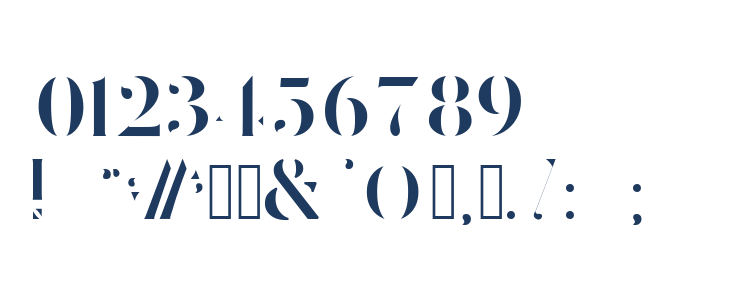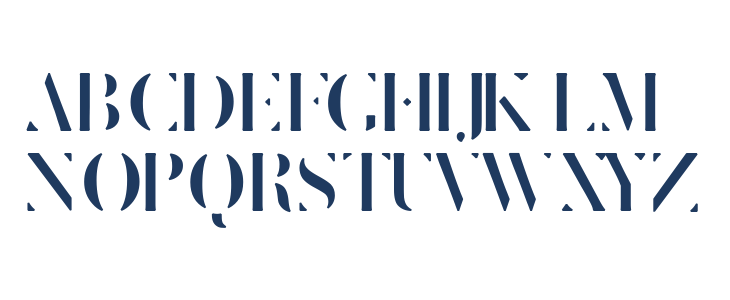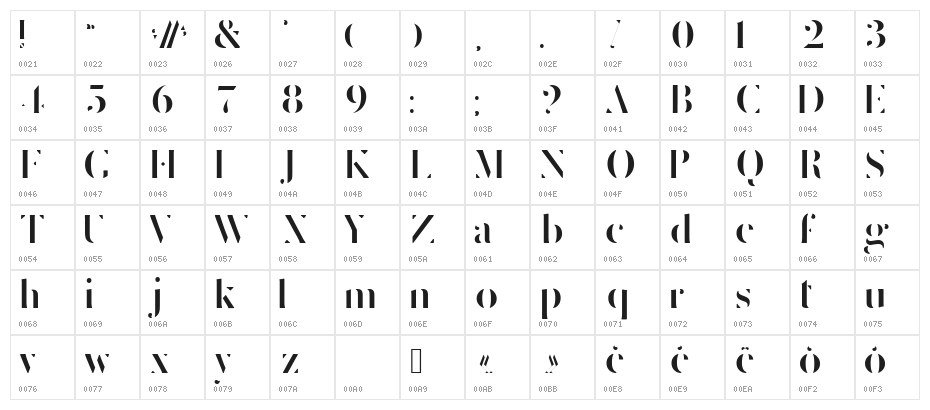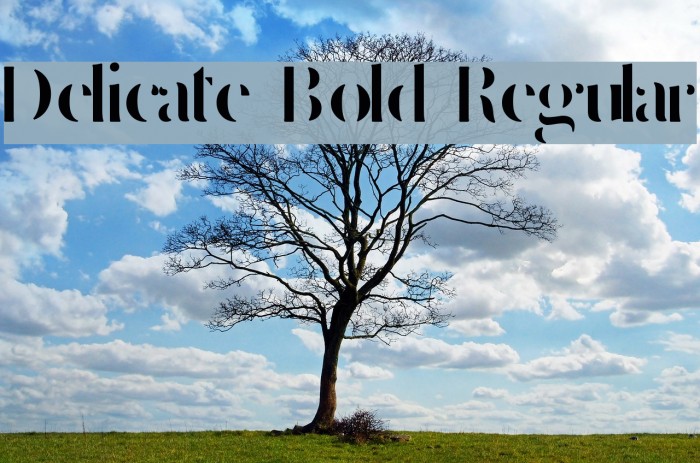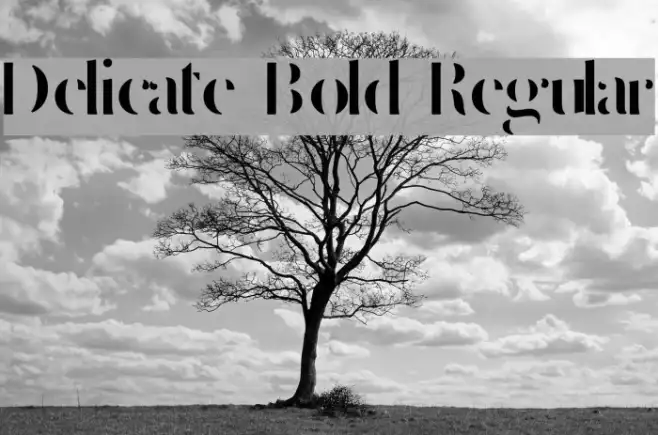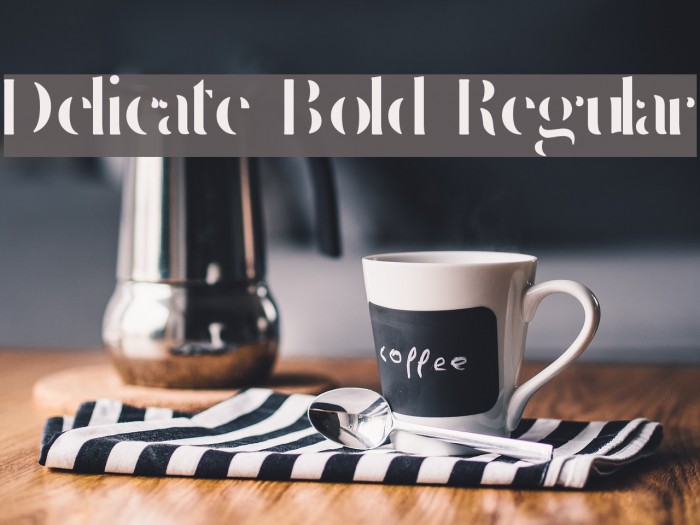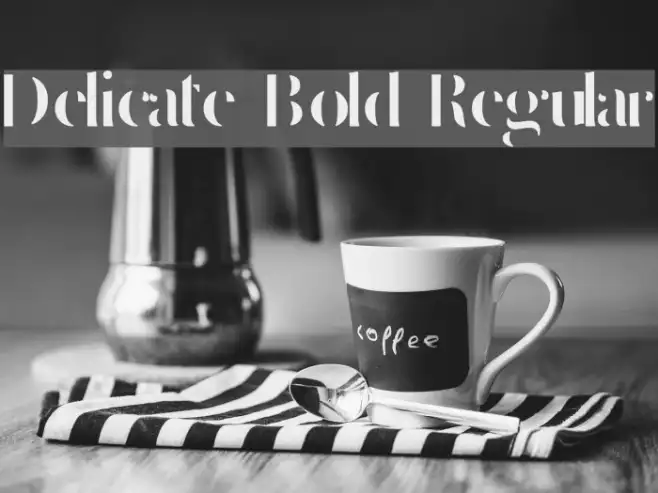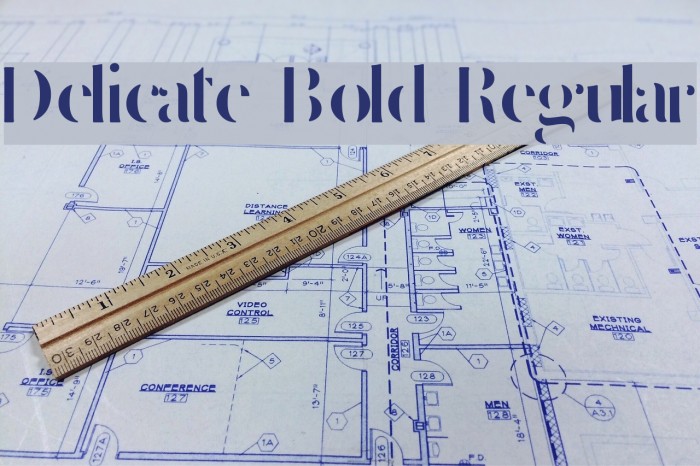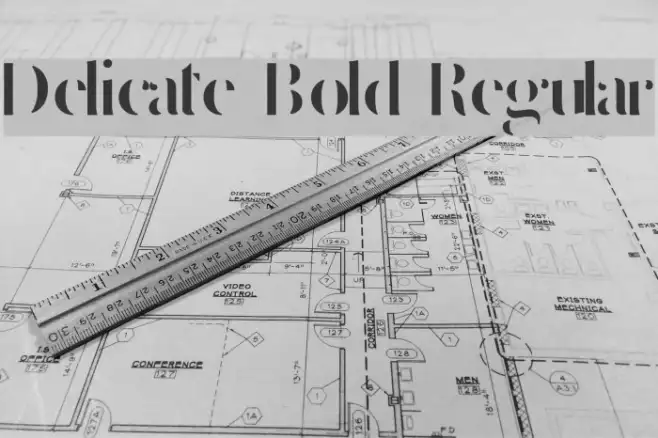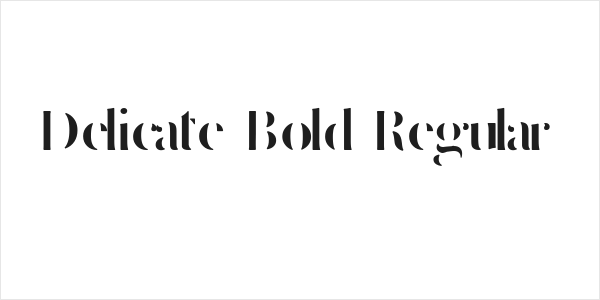
Delicate Bold Regular Font
Delicate Bold Regular Description
This font presents a bold and striking appearance with a stencil-like design. The characters are defined by thick, solid strokes interrupted by precise, clean cuts, creating a modern and industrial feel. The uppercase letters are particularly impactful, while the lowercase letters maintain a consistent style with slight variations in form. The numerals and special characters follow the same bold and cut-out aesthetic, ensuring uniformity across all glyphs. This font's unique style makes it stand out, offering a blend of strength and elegance.